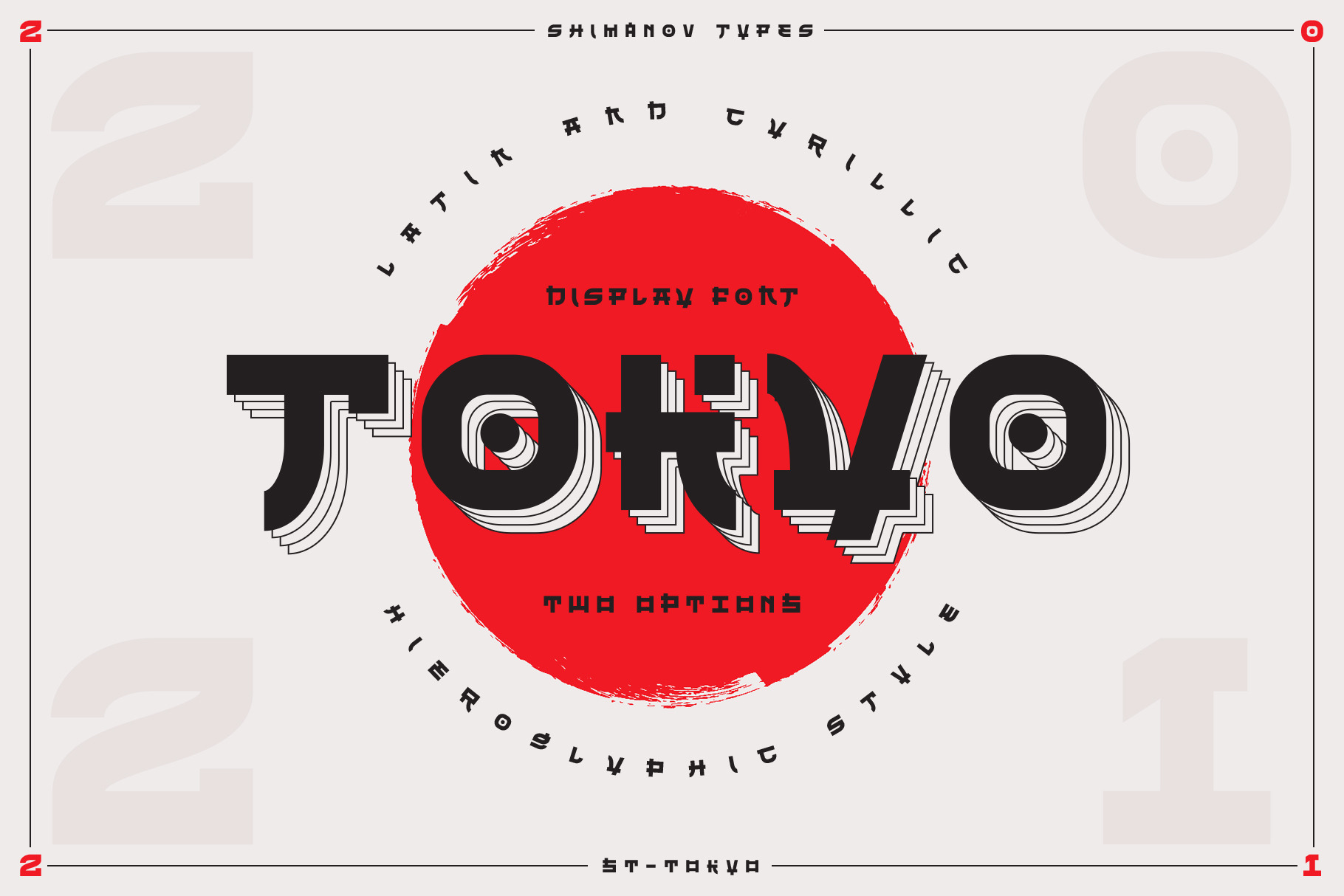
ST-Tokyo hieroglyphic display font
ST-Tokyo is a homage to modern Japanese graphic culture. This is a hieroglyphic display font with futuristic vibes, inspirated by Japanese posters. It comes in two options: small caps and uppercase as an alternatives. Included variety of alternatives glyghs for making your typography more interesting. It's good for social media, headlines, large-format print, branding, posters, fashion designs and websites. But, please, do not use it for typing a large array of text.
Numerals and basic punctuation included.